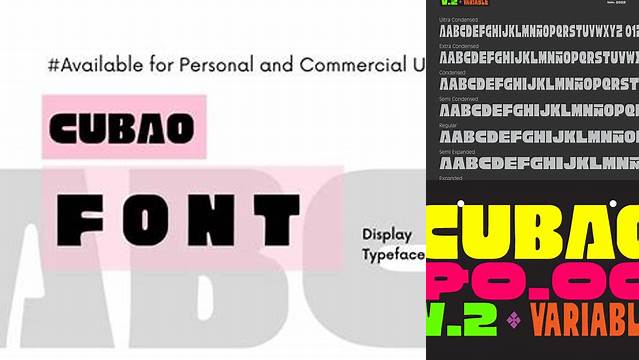
Cubao Font: Free Wide Font Download
Hey guys! Looking for a cool, modern font to spice up your designs? You've come to the right place! In this article, we're diving deep into the Cubao font, a fantastic wide font that's perfect for a variety of projects. We'll explore what makes it so special, where you can download it for free, and how to use it effectively. Get ready to level up your typography game!
What is Cubao Font?
So, what exactly is the Cubao font? Well, imagine a font that's bold, modern, and has a distinct wide letterform. That's Cubao in a nutshell! Its clean lines and geometric shapes give it a contemporary feel, making it ideal for headlines, logos, posters, and anything else that needs to grab attention. The Cubao font is designed with versatility in mind, ensuring it works seamlessly across various design platforms and applications. Its wide structure allows for impactful visual presence, making text stand out distinctly. Whether you're designing a website, creating marketing materials, or working on a branding project, the Cubao font offers a fresh and stylish touch. Its uniqueness sets it apart from more conventional fonts, enabling you to infuse your work with personality and flair. Furthermore, the readability of Cubao font is excellent, even at smaller sizes, which is crucial for maintaining clarity across different media. Its consistent design ensures that text is legible and visually appealing, contributing significantly to the overall aesthetic and user experience.
Why Choose a Wide Font Like Cubao?
Wide fonts, like the Cubao font, have a unique visual impact. They command attention and create a strong presence. Think about it – a wide font spreads out and fills space, making your text more prominent. This is especially useful in headlines and titles, where you want to make a statement. Moreover, wide fonts can add a touch of modernity and sophistication to your designs. The Cubao font, in particular, achieves this with its clean and geometric design. It’s not just about being wide; it’s about being stylish and impactful. Choosing a wide font like Cubao can significantly enhance the visual appeal of your projects. The Cubao font is also excellent for improving readability, especially in digital interfaces. The ample spacing within each character prevents crowding, making it easier for the eye to follow the text. This is particularly important in web design, where user experience is paramount. A wide font also works well in designs where there’s limited space, as it allows for a fuller visual impact without taking up excessive vertical space. In branding, using a distinctive wide font can create a memorable identity. The unique appearance of the Cubao font can help your brand stand out in a competitive market, leaving a lasting impression on your audience. The Cubao font thus represents a strategic choice for designers aiming to balance aesthetics with functionality.
Where to Find Cubao Font for Free Download
Using Cubao Font in Graphic Design Projects
The Cubao font is a fantastic choice for various graphic design projects. Its bold, wide letterforms make it ideal for headlines, posters, and logos. When using Cubao, consider the overall tone and message of your design. Its modern and geometric style works well for contemporary projects, but it can also add a unique twist to more traditional designs. Experiment with different font sizes and weights to see what works best for your specific needs. In posters, Cubao can be used to create eye-catching titles that grab the viewer's attention. Its strong visual presence ensures that your message stands out, even from a distance. For logos, Cubao can provide a distinctive and memorable brand identity. Its clean lines and modern aesthetic make it suitable for a wide range of businesses and organizations. In brochures and flyers, Cubao can be used for headings and subheadings, while a more legible font can be used for body text. This creates a visual hierarchy that guides the reader through the content. The Cubao font is also excellent for digital designs, such as website headers and social media graphics. Its clarity and readability make it easy to read on screens of all sizes. Experiment with different color combinations to see how Cubao interacts with your overall design palette. Its versatility makes it a valuable addition to any designer's toolkit.
Cubao Font for Headlines and Titles
When it comes to headlines and titles, the Cubao font really shines. Its wide, bold letterforms command attention and ensure your message is seen. Think of it as the headline font that says, “Hey, look at me!” The Cubao font is perfect for making a statement, whether it's on a website, a poster, or a presentation. Using Cubao in headlines can instantly add a modern and stylish touch to your designs. Its geometric shapes and clean lines give it a contemporary feel that’s perfect for attracting the eye. Experiment with different font sizes and letter spacing to achieve the desired effect. In titles, Cubao can help create a strong visual hierarchy. By making the title larger and bolder, you can ensure it stands out from the rest of the text. This is particularly important in layouts with a lot of content, where you need to guide the reader's eye. The Cubao font also works well with other fonts, so you can pair it with a more traditional font for the body text to create contrast. Its boldness makes it an excellent choice for grabbing attention, while its legibility ensures that your message is clear and easy to read. When using Cubao for headlines and titles, consider the overall tone of your design. Its modern aesthetic makes it suitable for a wide range of projects, from technology startups to creative agencies. The Cubao font is truly a headline hero.
Creating Logos with Cubao Font
Logos are the face of a brand, and choosing the right font is crucial. The Cubao font, with its bold and distinctive character, can be an excellent choice for logo design. Its wide letterforms give it a strong presence, making your logo stand out. When using Cubao for a logo, think about the message you want to convey. Its modern and geometric style is well-suited for brands that want to project a contemporary image. The Cubao font can be adapted to fit various brand identities, from tech startups to creative agencies. Experiment with different letter combinations and arrangements to find the perfect balance. Simplicity is key in logo design, and Cubao's clean lines help maintain a minimalist aesthetic. Consider pairing Cubao with a simple icon or graphic element to create a memorable visual identity. Its boldness ensures that your logo remains visible even at small sizes, which is essential for versatility across different platforms. In logo design, typography plays a crucial role, and Cubao's unique character can help your brand stand out from the competition. The Cubao font is a great starting point for creating a logo that’s both modern and memorable. Its strong visual impact and legibility make it a dependable choice for branding, offering a distinctive touch to any company's image.
Cubao Font for Posters and Flyers
Need to make a statement? The Cubao font is your go-to for posters and flyers. Its bold, wide design commands attention, making it perfect for grabbing eyeballs. Think about it – you're scrolling through a wall of posters, and one with Cubao jumps out. That's the power of a strong font! When designing posters, the Cubao font can be used for the main headline to create a striking visual impact. Its wide letterforms ensure that your message is seen from a distance, making it ideal for advertising events or promotions. The Cubao font also works well for flyers, where you need to convey information quickly and effectively. Its legibility makes it easy to read, even in smaller sizes. Consider using Cubao for key information, such as the event name, date, and location. Its modern aesthetic can add a touch of sophistication to your design, making it more appealing to your target audience. The Cubao font can be combined with other fonts to create visual contrast. For example, you could use Cubao for the headline and a simpler font for the body text. When using Cubao for posters and flyers, think about color combinations. Its bold design pairs well with bright, contrasting colors that further enhance its impact. The Cubao font is a dynamic choice for any promotional material, offering a perfect blend of style and functionality.
Using Cubao Font in Web Design
Web design is all about user experience, and typography plays a huge role. The Cubao font can be a fantastic asset in web design, adding a modern and stylish touch to your website. Its clean lines and geometric shapes make it easy to read on screens of all sizes. When using Cubao in web design, consider how it fits with the overall aesthetic of your site. Its contemporary feel makes it suitable for a wide range of websites, from portfolios to e-commerce stores. The Cubao font can be used for headlines, navigation menus, and even body text, depending on your design needs. Its boldness ensures that key information stands out, while its legibility makes it comfortable to read long passages of text. In web design, font pairing is crucial. The Cubao font works well with a variety of other fonts, so you can experiment to find the perfect combination. For example, you could use Cubao for headlines and a more traditional font for body text. The Cubao font is also great for call-to-action buttons, where you want to grab the user’s attention. Its strong presence ensures that your buttons stand out, encouraging clicks. When using Cubao in web design, think about responsiveness. Make sure the font looks good on all devices, from desktops to smartphones. The Cubao font is an excellent choice for creating a visually appealing and user-friendly website. Its versatility and readability make it a go-to for modern web design, enhancing both the aesthetic and functional aspects of your site.